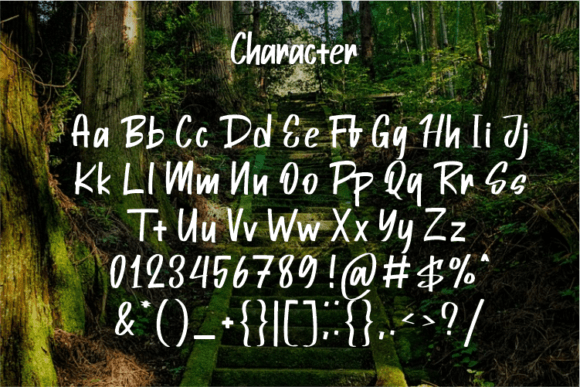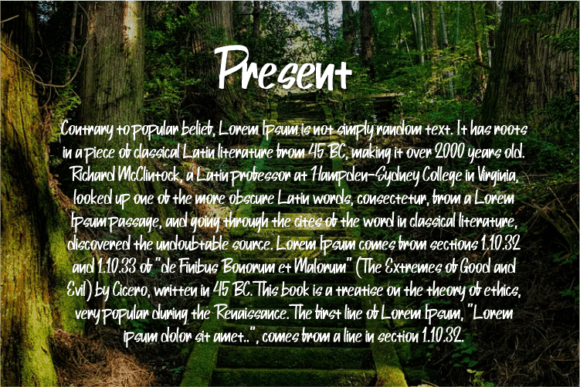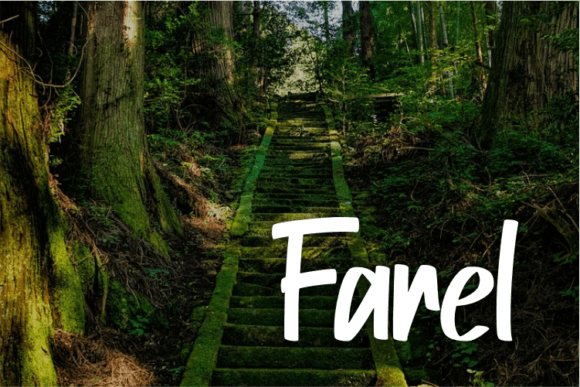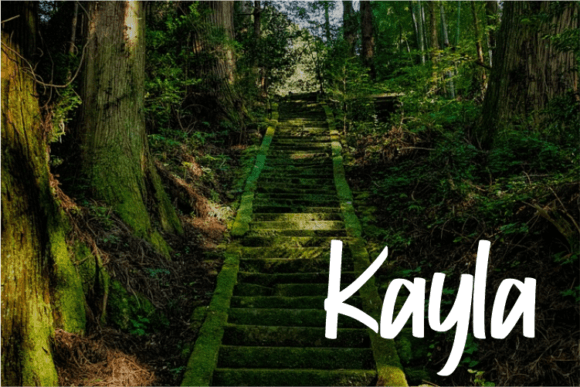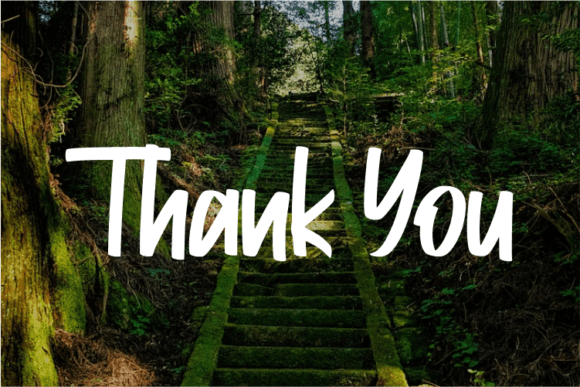
Introducing Hanzo Font: Elevate Your Designs with Timeless Elegance
In the world of typography, fonts play a crucial role in conveying the tone and personality of a design. For designers and crafters seeking to add a touch of sophistication and elegance to their projects, the Hanzo Font is an exceptional choice. This trendy handwritten font boasts a contemporary atmosphere and impeccable form, drawing inspiration from timeless classic calligraphy.
The Essence of Hanzo Font
Hanzo Font is a beautiful, handwritten typeface that exudes refinement and poise. Its unique blend of traditional calligraphy and modern sensibilities makes it an ideal choice for designers looking to create stunning visual content. With its flowing lines, delicate strokes, and precise letterforms, Hanzo Font is sure to add a level of sophistication to any design project.
Key Features of Hanzo Font
- Trendy and Contemporary: Hanzo Font features a modern design that is perfect for designers seeking to create fresh and stylish visual content.
- Inspired by Classic Calligraphy: The font’s classic calligraphy inspiration gives it a timeless quality, making it suitable for a wide range of design applications.
- Impeccable Form: Hanzo Font boasts precise letterforms and delicate strokes, ensuring that your designs look polished and refined.
- Elegant and Classy: This font is designed to add a touch of elegance and sophistication to any design project, making it perfect for high-end branding, packaging, and more.
Uses of Hanzo Font
Hanzo Font is a versatile typeface that can be used in a variety of design applications, including:
- Branding and Logo Design: Create stunning logos and brand identities with Hanzo Font’s elegant and refined design.
- Packaging Design: Add a touch of sophistication to your packaging designs with this beautiful handwritten font.
- Stationery and Invitations: Create elegant stationery, invitations, and greeting cards with Hanzo Font’s classic and refined design.
- Digital Design: Use Hanzo Font in digital designs, such as website headers, social media graphics, and more.
Tips for Using Hanzo Font
To get the most out of Hanzo Font, consider the following tips:
- Pair with Neutral Backgrounds: Hanzo Font looks best on neutral backgrounds, allowing its elegant design to take center stage.
- Experiment with Colors: Try pairing Hanzo Font with a range of colors to create stunning visual effects.
- Use for Headings and Titles: Hanzo Font is perfect for headings and titles, adding a touch of elegance and sophistication to your designs.
In conclusion, Hanzo Font is a stunning handwritten font that is sure to elevate your design projects with its timeless elegance and impeccable form. With its trendy and contemporary design, classic calligraphy inspiration, and versatile uses, Hanzo Font is an excellent choice for designers and crafters seeking to add a touch of sophistication to their work.